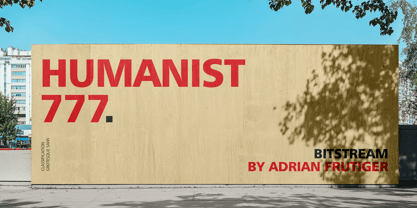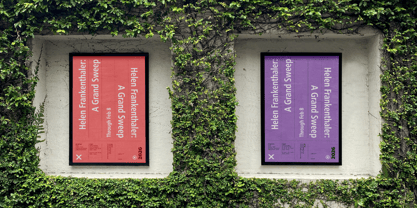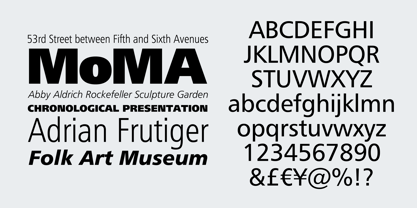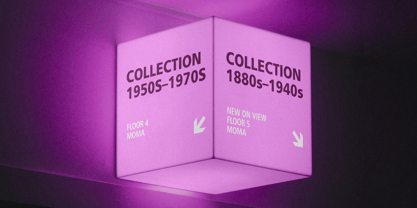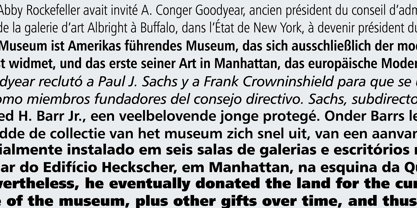
Humanist 777
por Bitstream
La familia tipográfica Humanist 777 fue diseñada por Adrian Frutiger y publicada por Bitstream. Humanist 777 contiene 14 estilos y opciones de paquete familiar.
Humanist 777 is Bitstream’s reinterpretation of Adrian Frutiger’s groundbreaking humanistic sans serif typeface family, originally released by Stempel/Linotype during the mid-20th century. Humanist 777 embodies the softer, more organic side of the sans serif tradition. Unlike rigid geometric grotesques, it features subtle calligraphic modulation and open letterforms, making it highly readable and ideal for both extended text and versatile design systems.
The Frutiger typeface design has long been a trusted choice for advertising, editorial design, wayfinding, and branding worldwide. Humanist 777 can be ideal for creating multilingual design systems, accessible government interfaces, advertising and branding campaigns, as well as editorial and wayfinding projects.
Diseñadores: Adrian Frutiger
Editorial: Bitstream
Fundición: Bitstream
Fundición original: Bitstream
Propietario del diseño: Bitstream